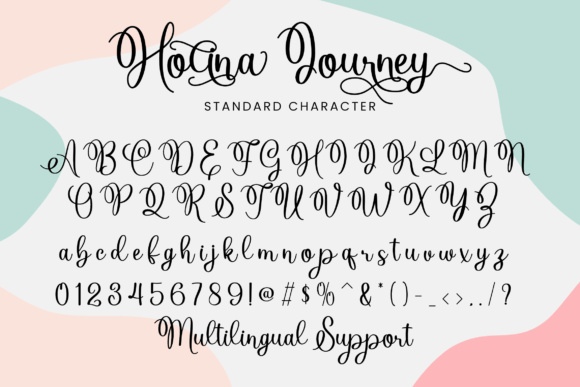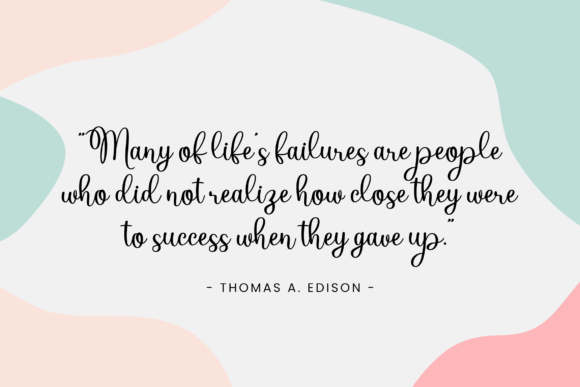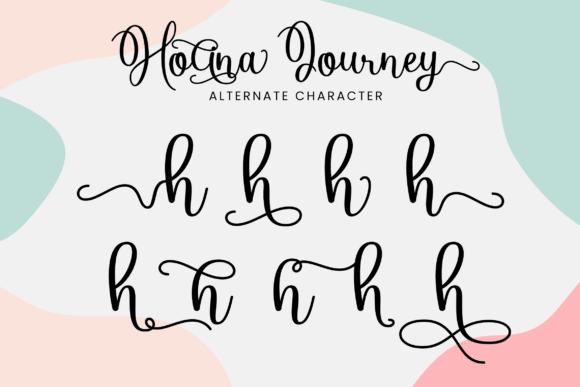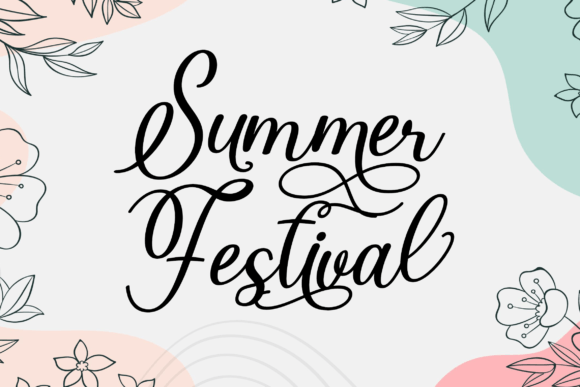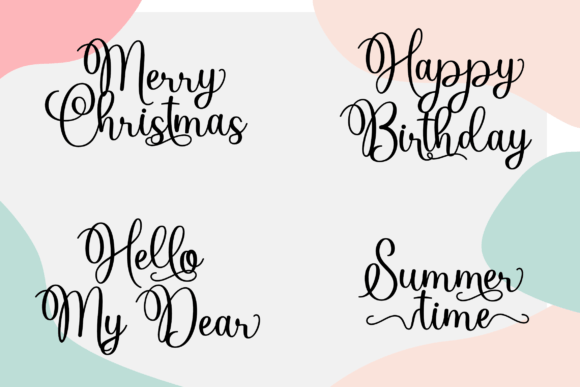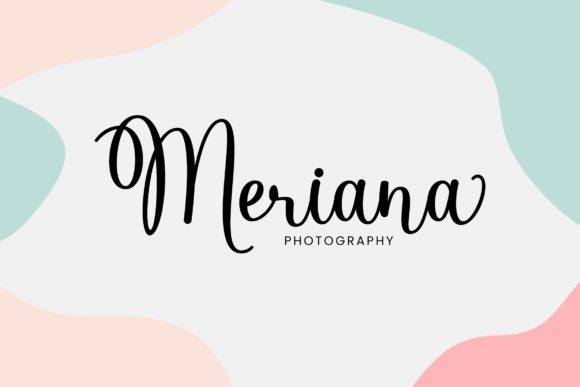
Introduction to Holina Journey Font
Holina Journey is a beautiful and romantic handwritten font.
It looks amazing on thank you cards, quotes, wedding invitations, greeting cards, business cards, logos and any other design that requires a touch of handwriting This font is PUA encoded which means you can access all the glyphs and swashes easily.